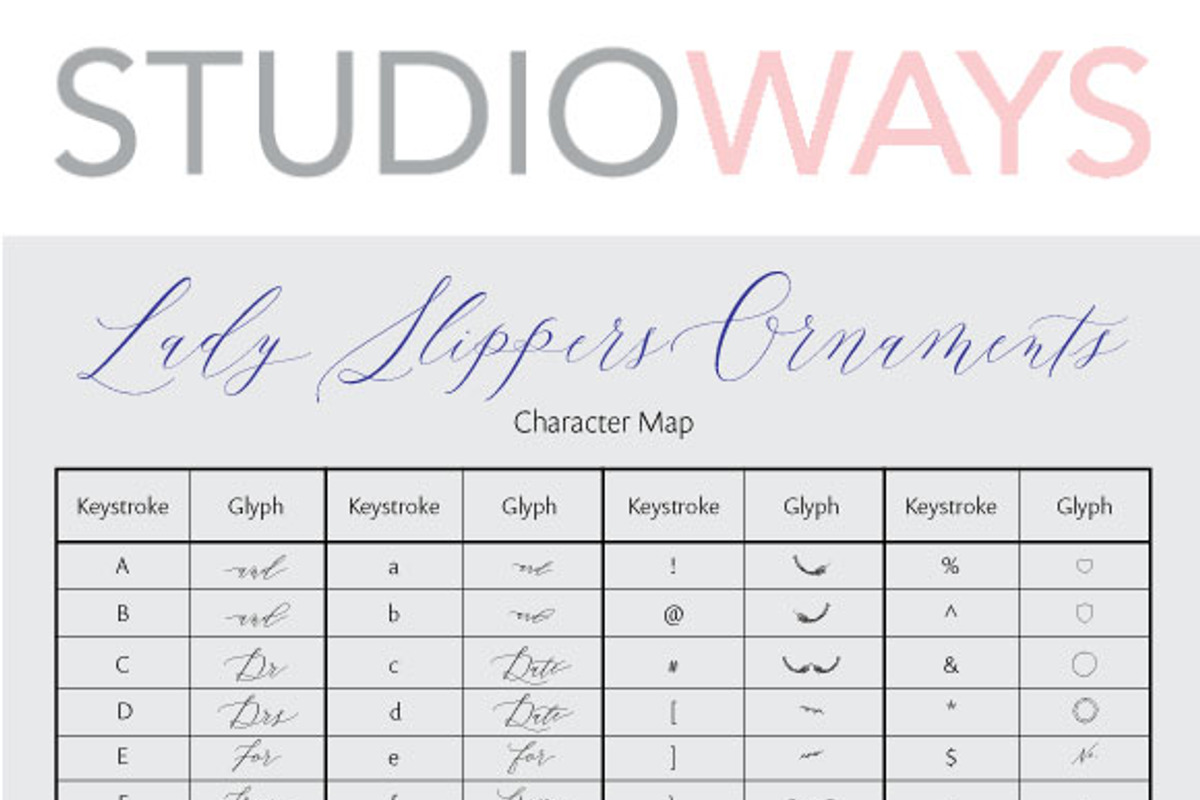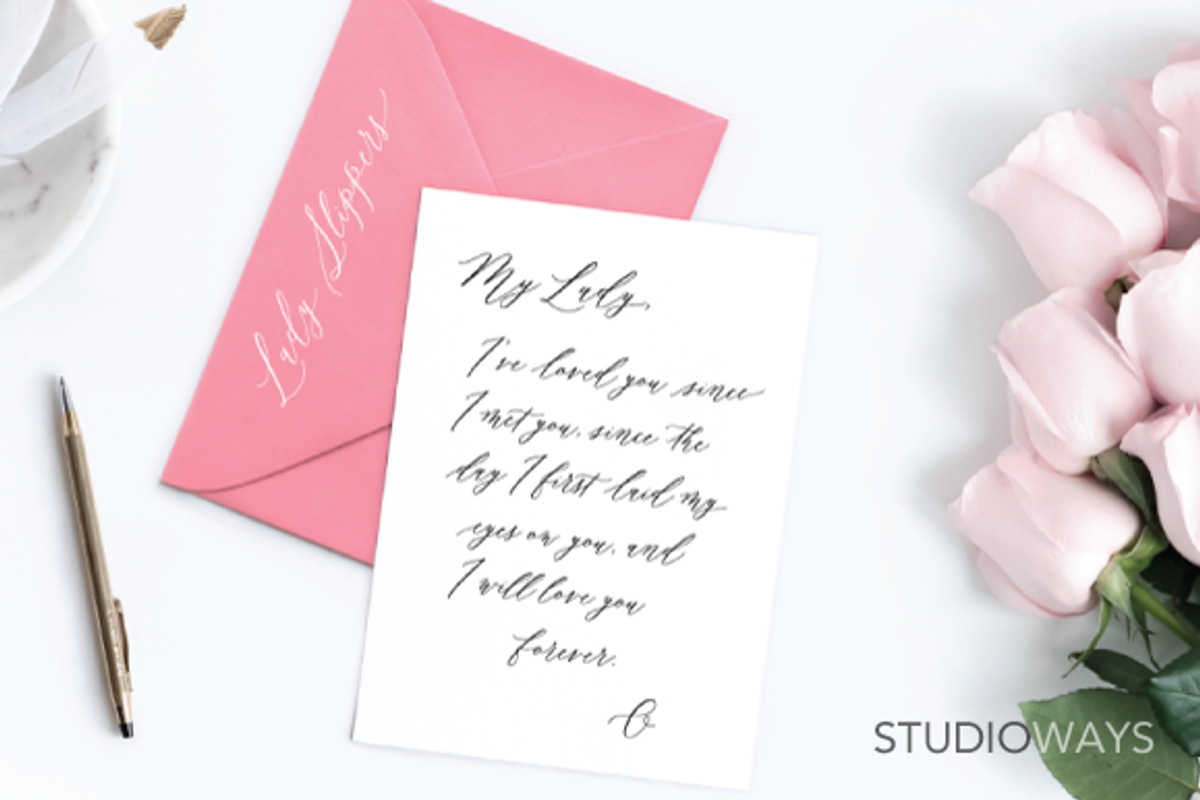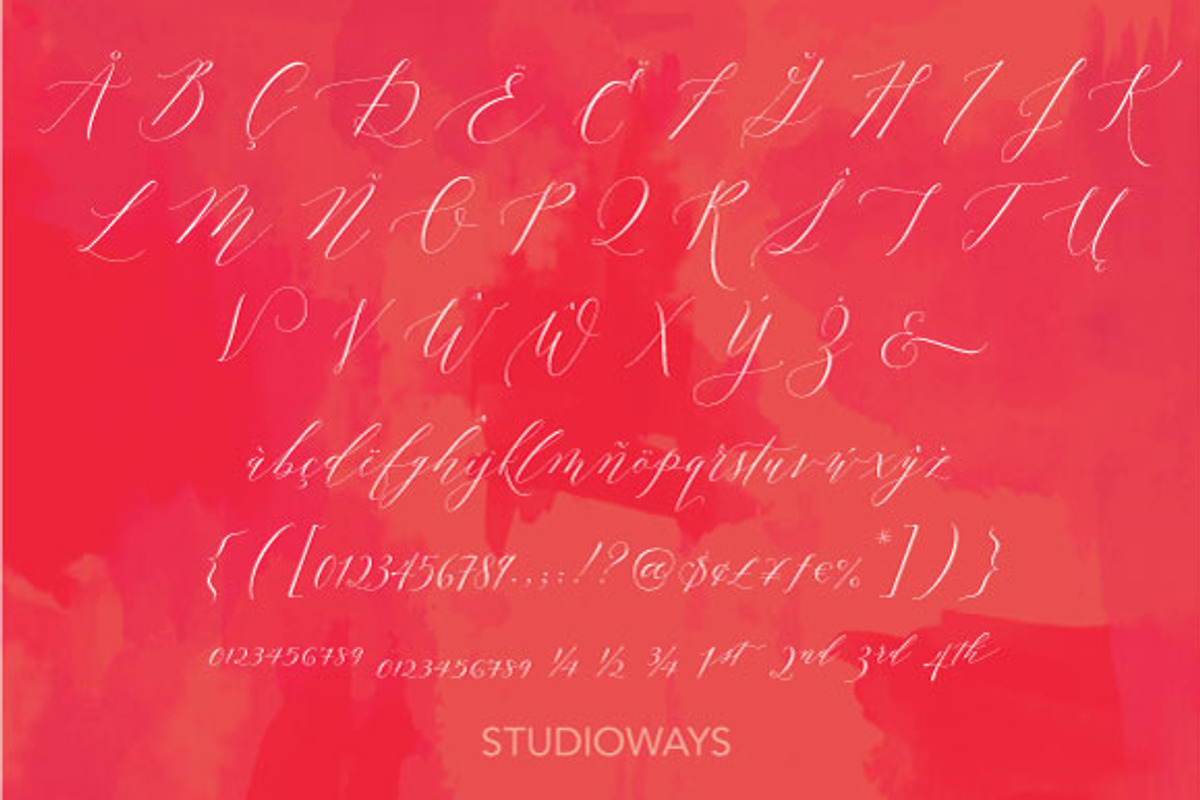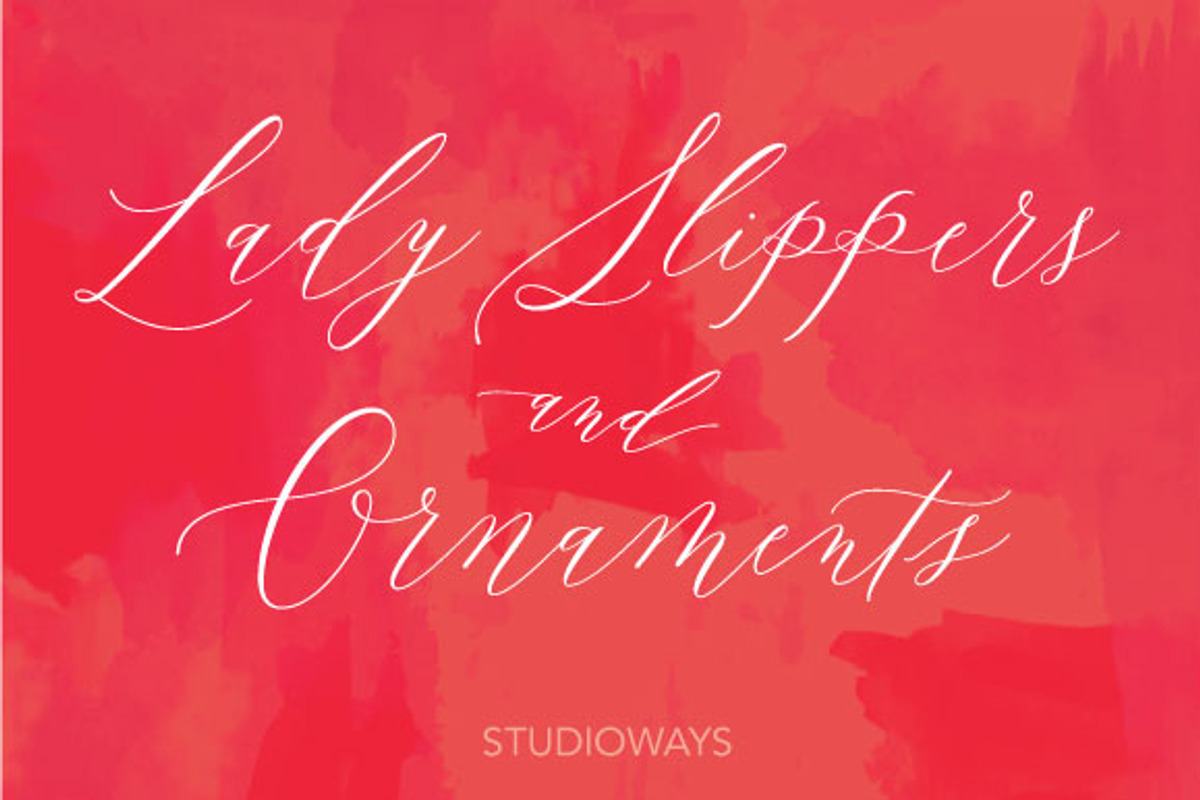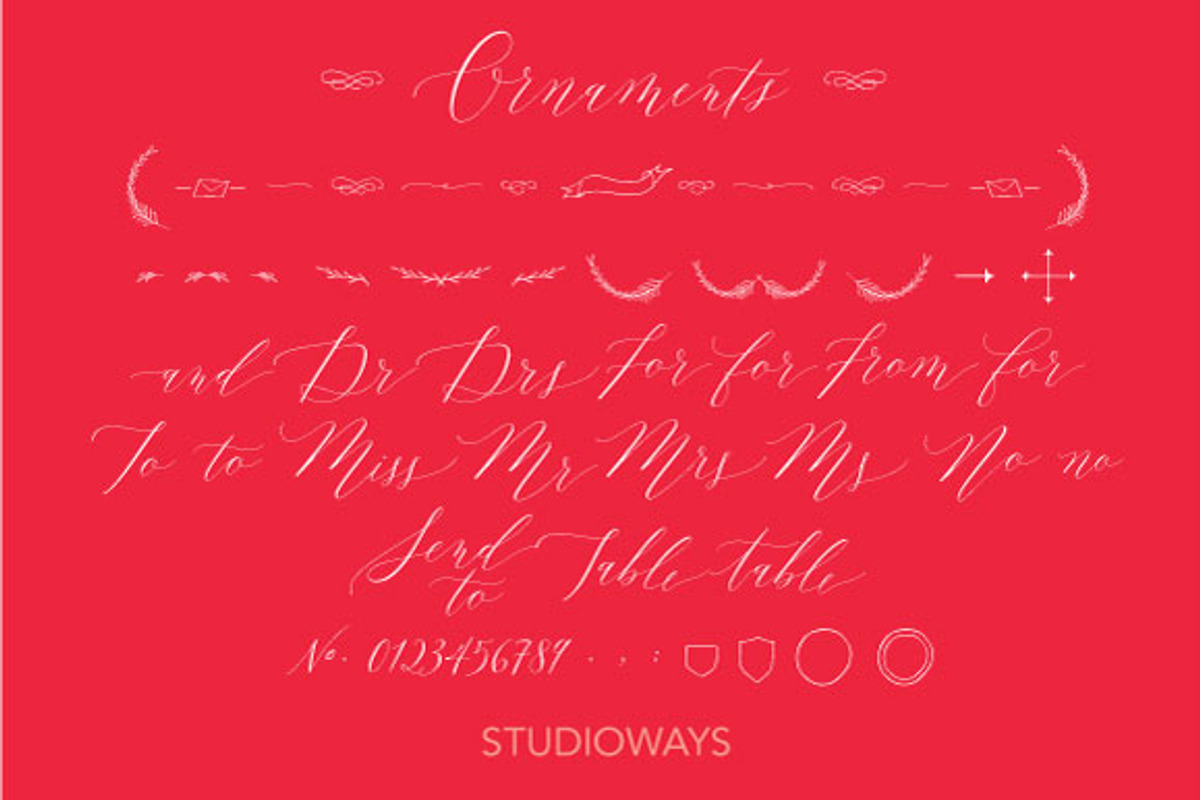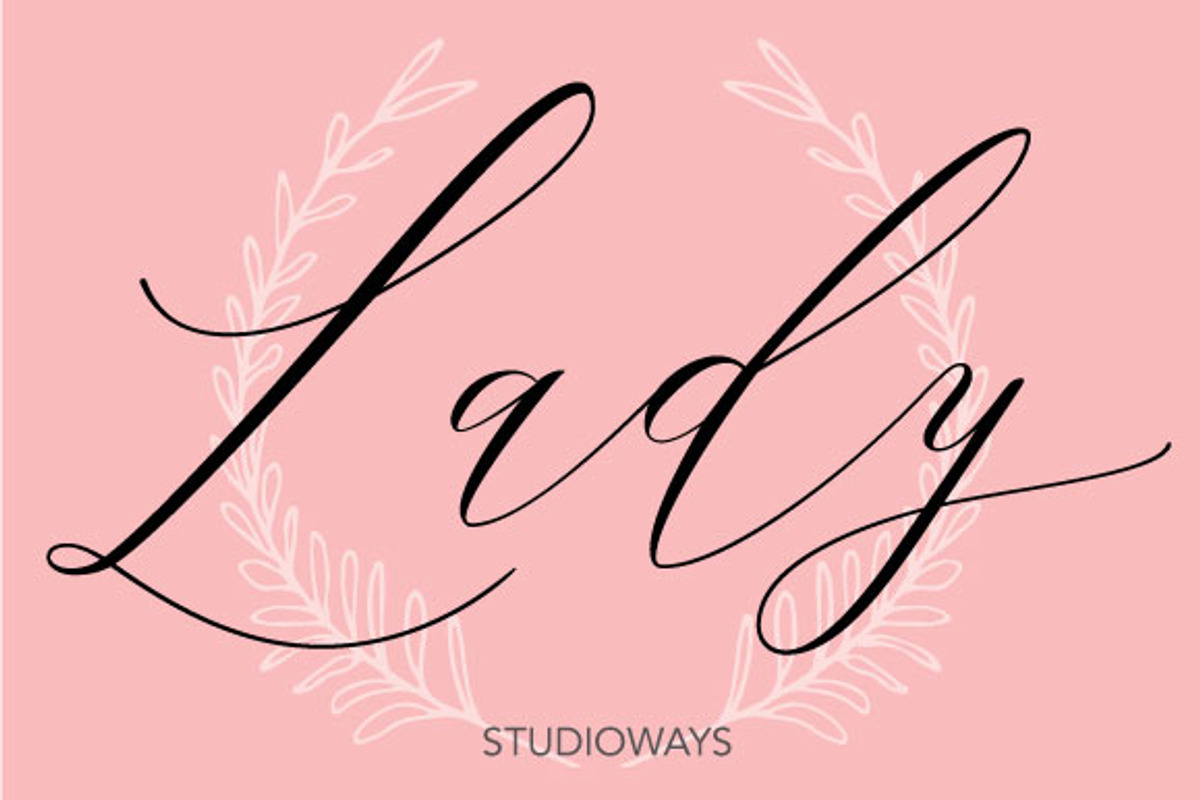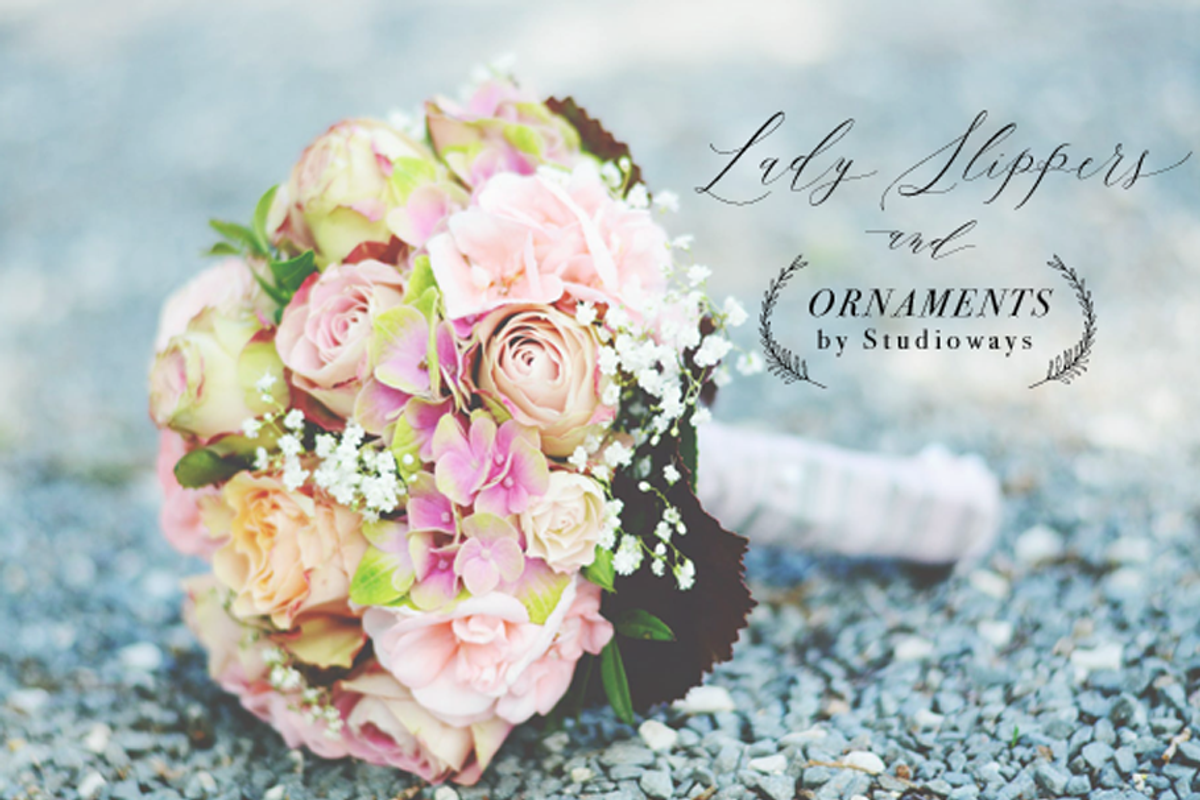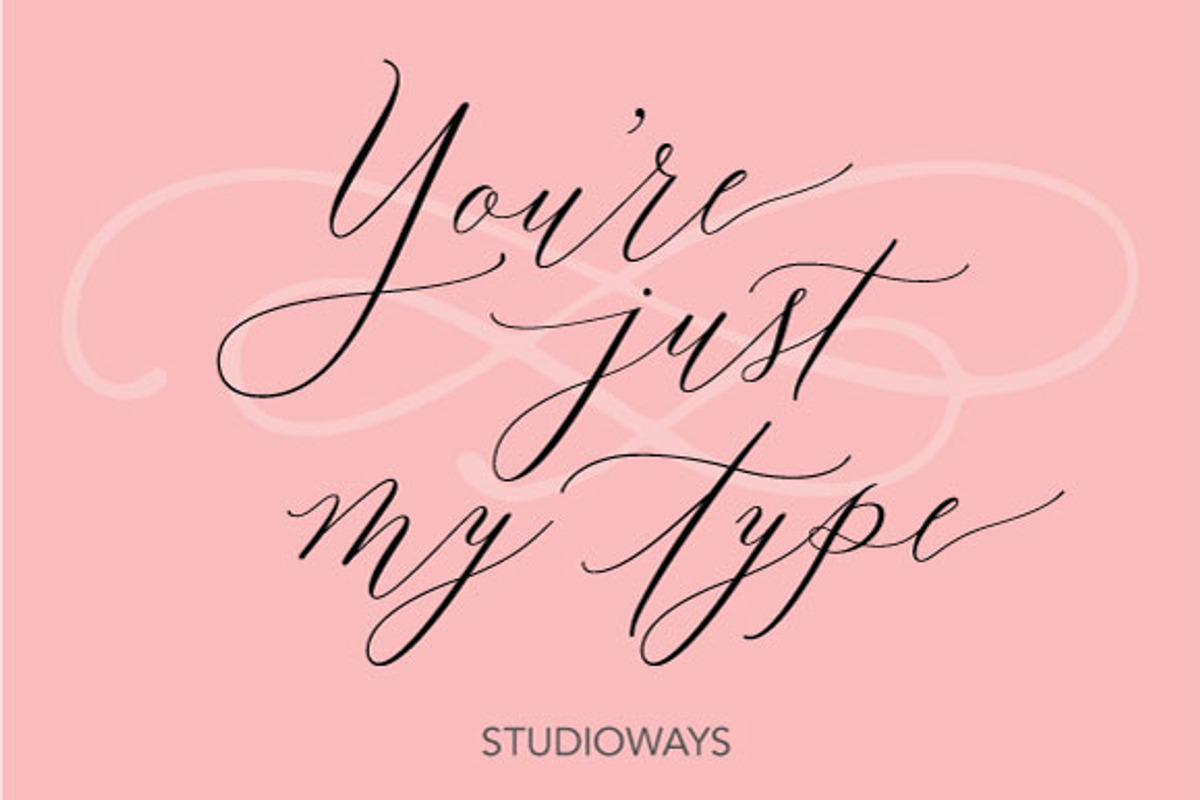
Lady Slippers & Ornaments
This bundle contains the fully tricked out version of Lady Slippers and Lady Slippers Ornaments. Lady Slippers includes many OpenType bells and whistles including, swashes, ligatures, discretionary ligatures and stylistic alternates. Enabling them makes it possible to create beautiful seemingly hand-written calligraphy designs. Combine that with Lady Slippers Ornaments to create special invitations, bridal cards and stationary goodies! Also included in the bundle is a Key Map, to help you figure out where all the ornaments are in the font!
Lady Slippers supports an extensive list of languages including, Croatian, Czech, Danish, Dutch, English, Estonian, Finnish, French, German, Hungarian, Irish, Italian, Latvian, Lithuanian, Norwegian, Polish, Portuguese, Romanian, Serbian, Slovak, Slovenian, Spanish, Swedish, and Turkish.